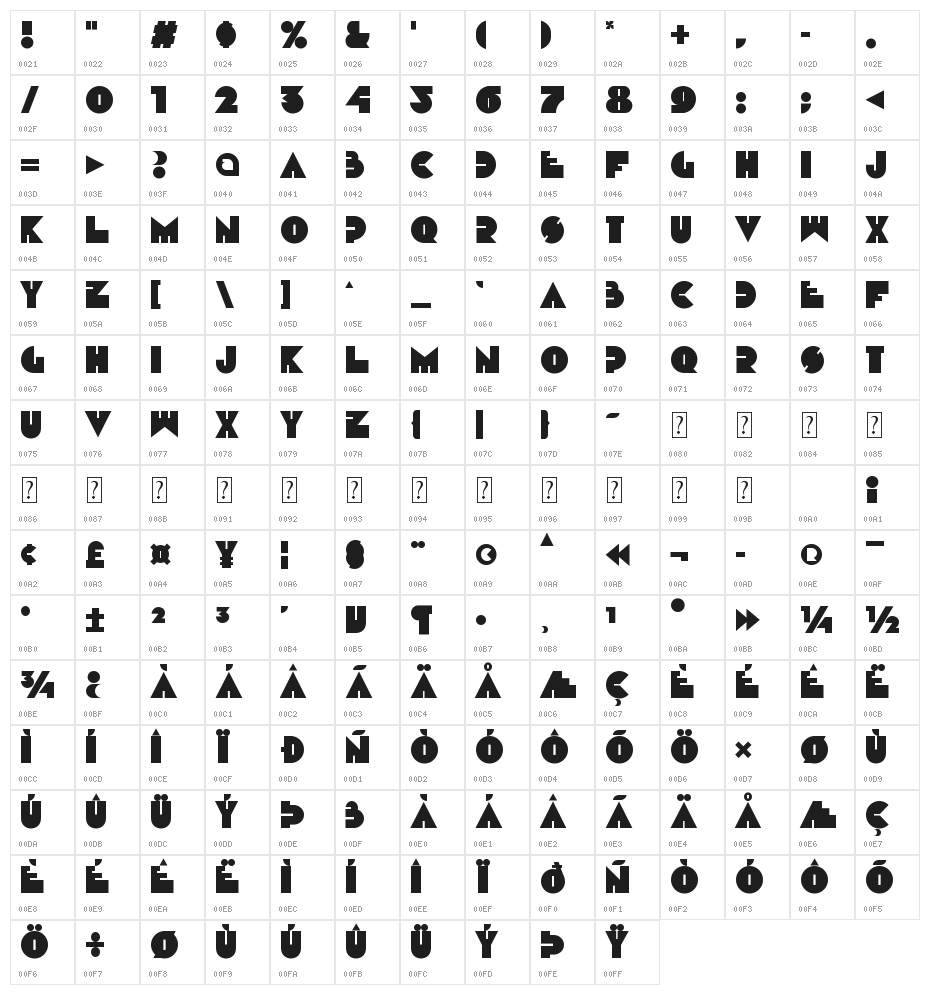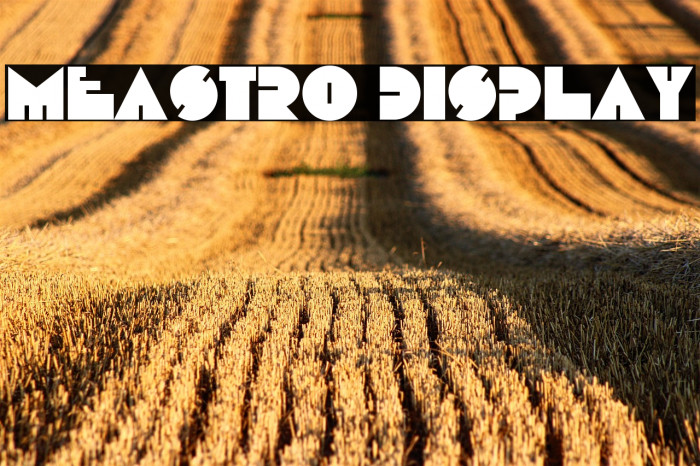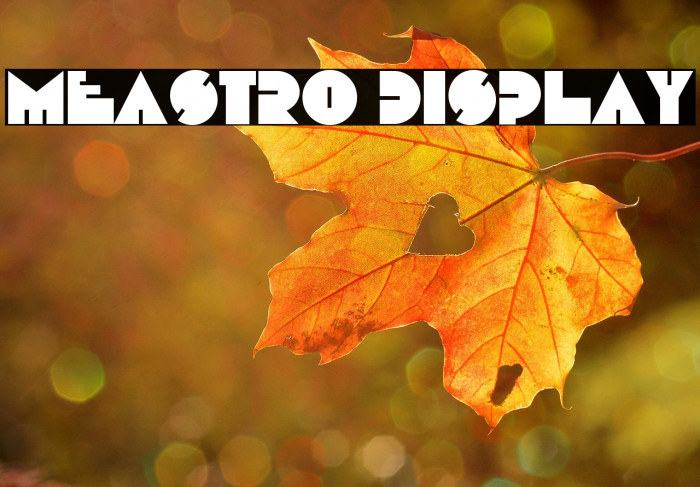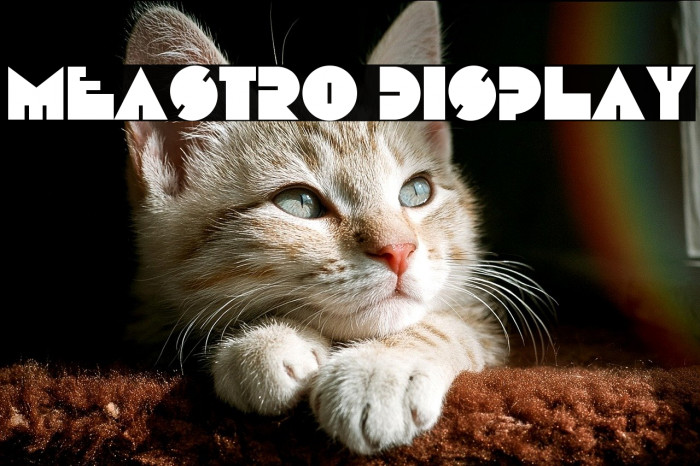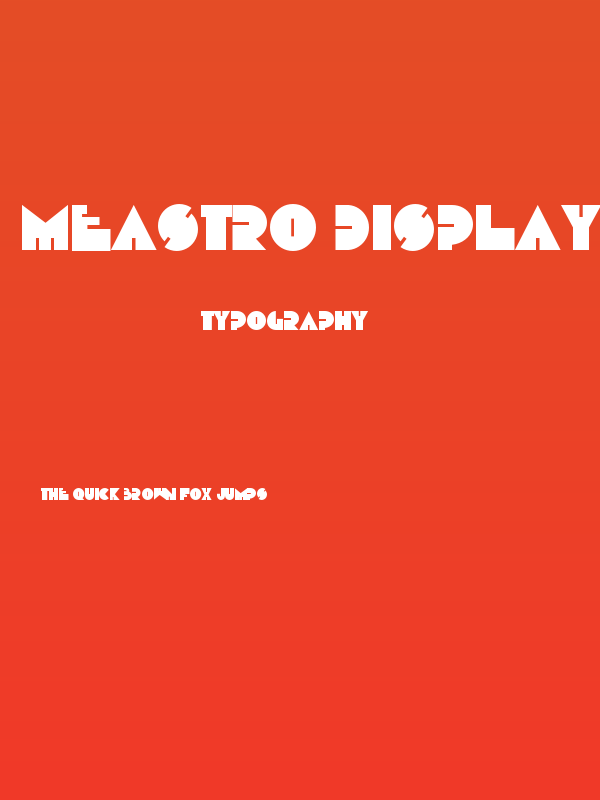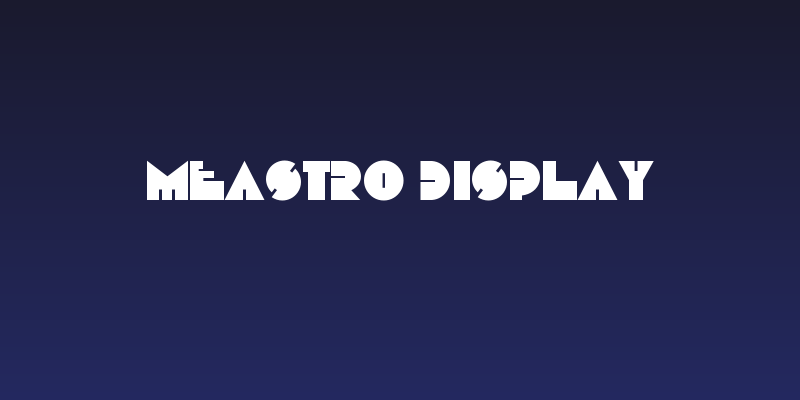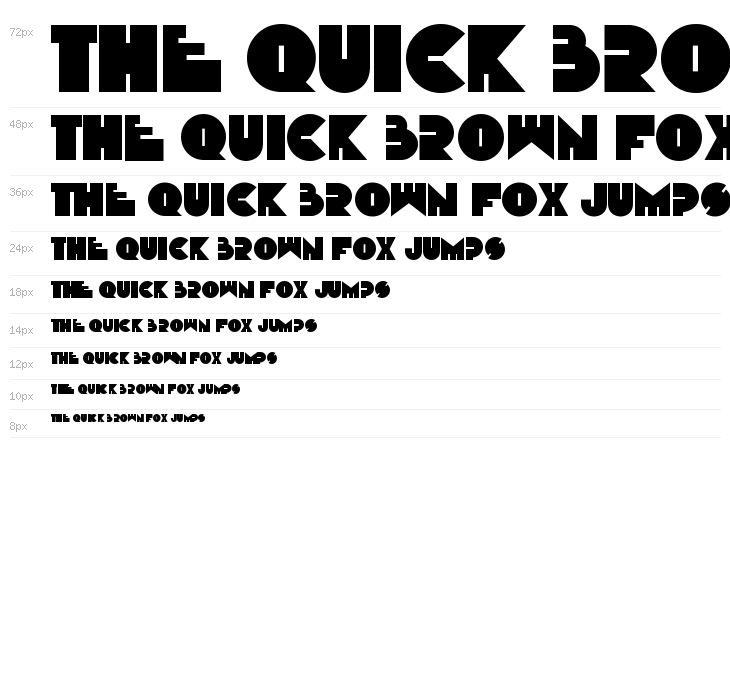
Meastro Display Font
Meastro Display Description
This font features a bold and geometric design, characterized by its sharp angles and strong presence. The letters are constructed with a combination of straight lines and curves, creating a dynamic and eye-catching appearance. The uppercase and lowercase letters maintain a consistent style, with a uniform thickness that emphasizes the boldness of the font. The numbers and special characters are designed to match the overall aesthetic, ensuring a cohesive look across all elements. This font is ideal for making a strong visual impact, suitable for headlines and display purposes.
| Proposed Projects | Ideal for posters, logos, branding, and any project requiring a striking and modern typeface. |